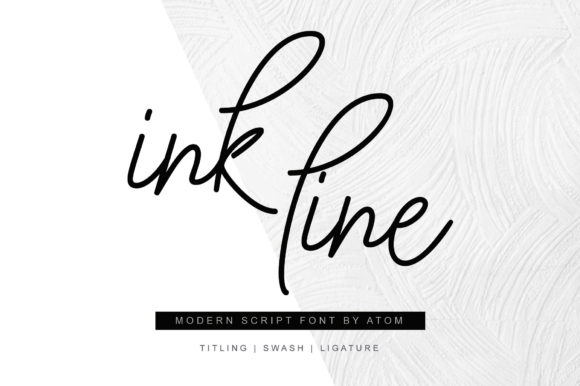
Ink Line Font
Step into the realm of Ink Line, a captivating script font that will ignite your creativity and transport you to a world of endless possibilities. Each stroke of this font exudes elegance, inviting you to pen down your thoughts, stories, and ideas with a touch of grace.
With its delicate curves and flowing lines, Ink Line evokes a sense of nostalgia, reminiscent of cherished handwritten letters. Yet, it possesses a modern charm that keeps it fresh and relevant, making it the perfect choice for a wide range of projects.
Imagine your words taking flight on invitations adorned with Ink Line's intricate swirls, adding a touch of enchantment to your special occasions. Embrace the whimsical nature of this font as you craft personal notes and heartfelt letters, imbuing them with a warmth that transcends the digital realm.
For creatives seeking to make a striking impact, Ink Line is your muse. Design captivating logos that leave a lasting impression, or create eye-catching social media posts that draw attention with their effortless sophistication. The possibilities are as boundless as your imagination.
Ink Line is not just a font; it's a gateway to unlocking the power of expression. Let its graceful strokes inspire you to craft masterpieces that resonate with your audience. Embrace the beauty of handwritten perfection, and let Ink Line elevate your words to new heights.